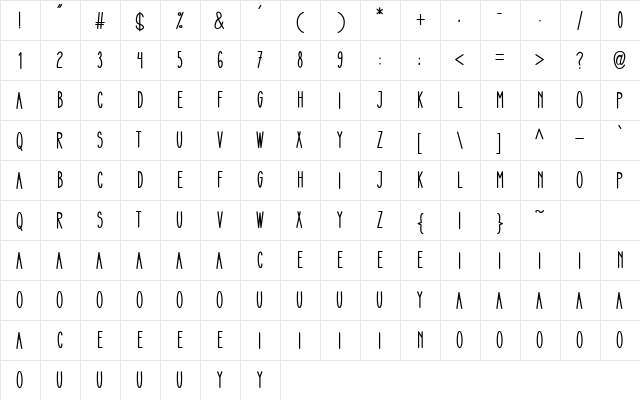
Christmas Light Regular
| Foundry | Farz Studio |
| Designer | Farz Studio |
Design Context for Christmas Light Typeface
Christmas Light is a composed and adaptable typeface that performs quietly and consistently across a wide range of design contexts. The delicate stroke weight brings airiness and refinement to layouts.